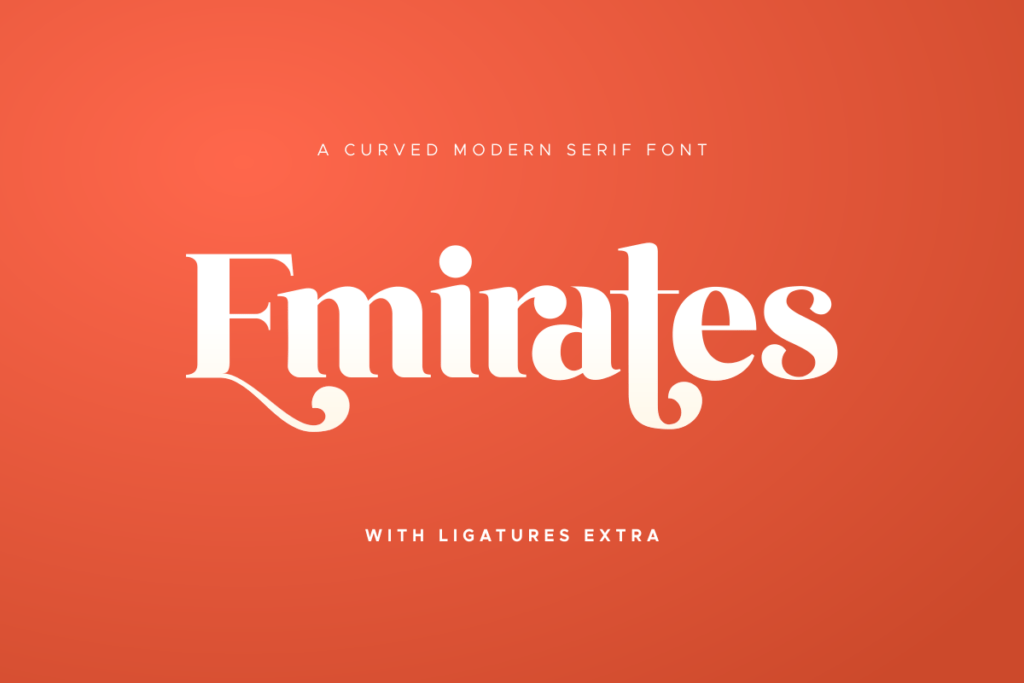
Emirates Font
Emirates is a beautiful curved serif font. It has special ligatures and it will add a unique touch to any crafting project.
Emirates Serif Font